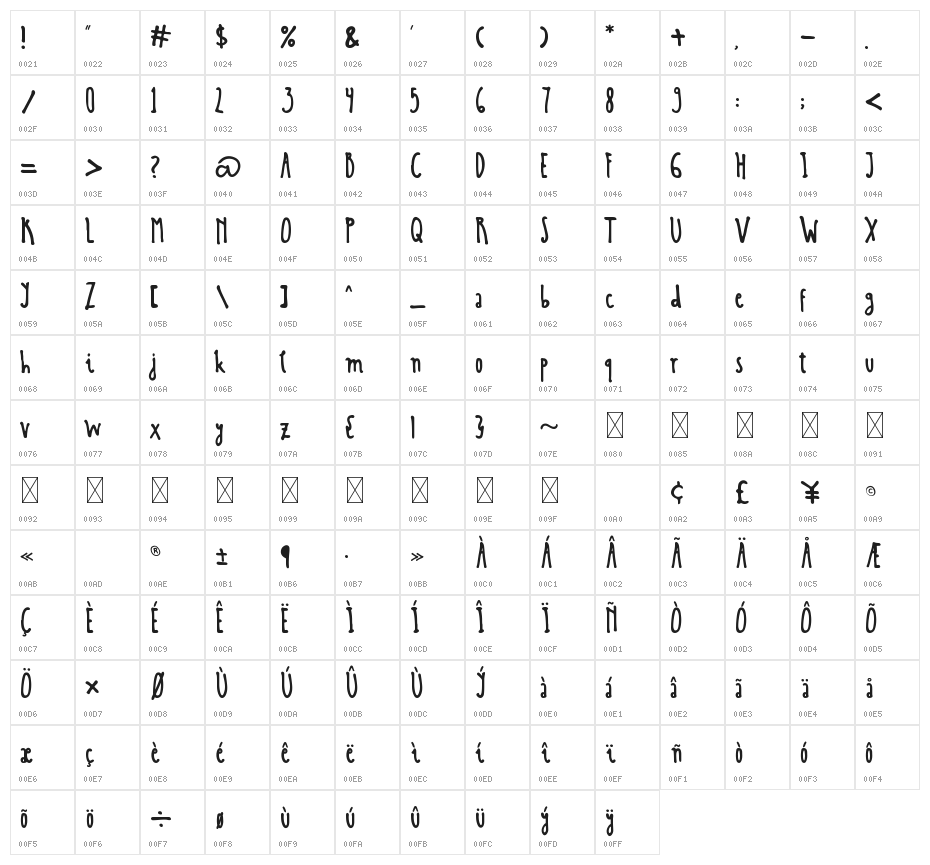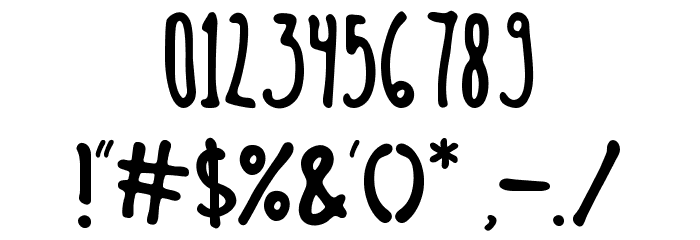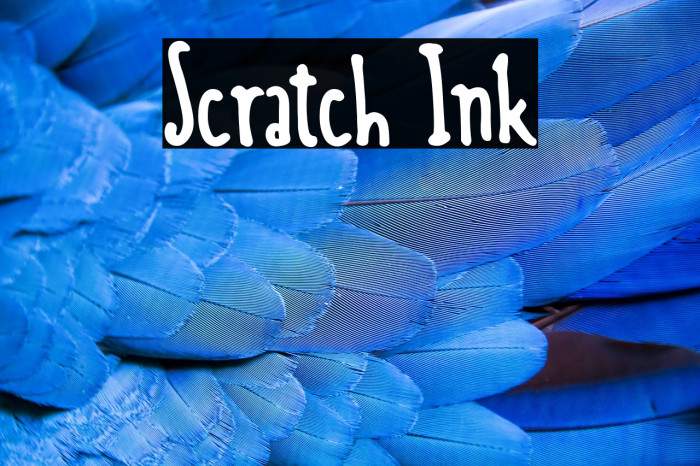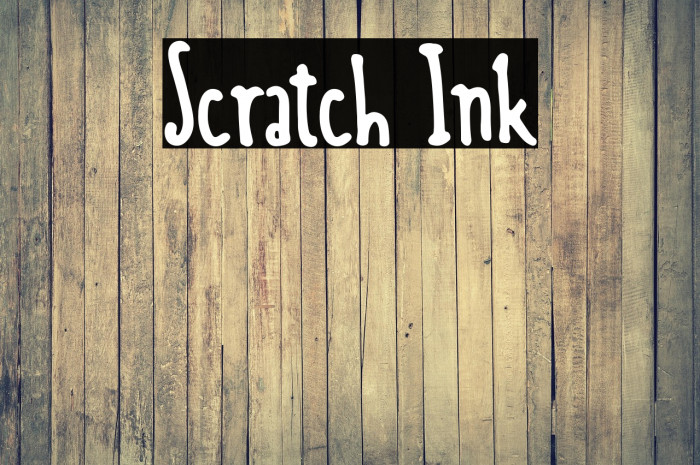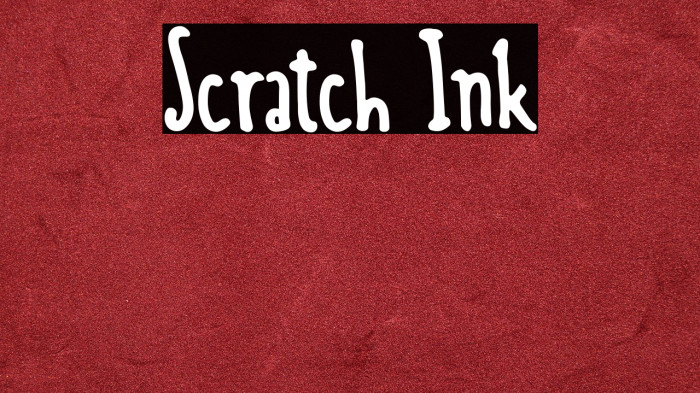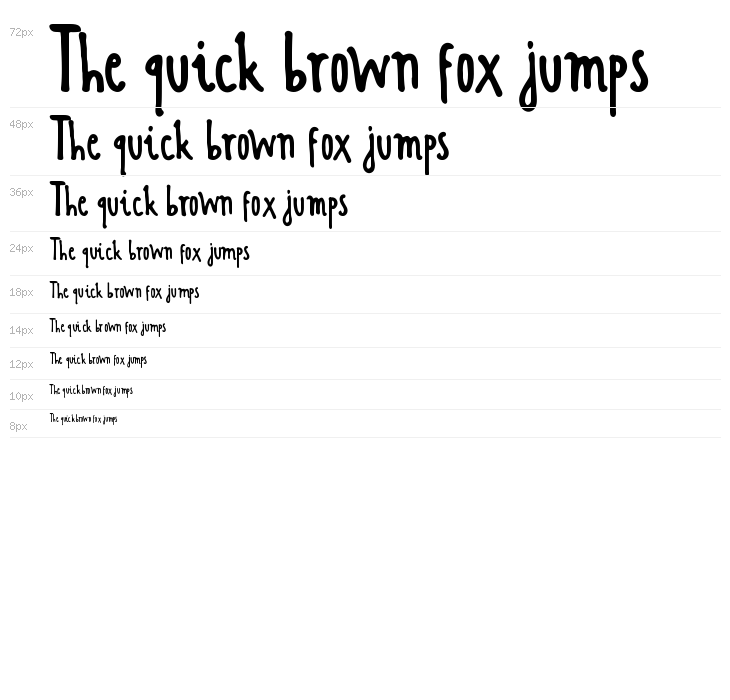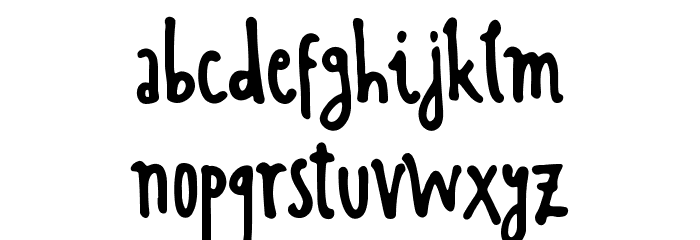
Scratch Ink Font
Scratch Ink Description
This font features a playful and informal style, characterized by its hand-drawn appearance. The letters have a slightly irregular shape, giving them a whimsical and artistic feel. The strokes are bold and rounded, with a consistent thickness that adds to the casual and approachable vibe. The overall design is reminiscent of handwriting, making it suitable for projects that require a personal touch. The characters are well-spaced, ensuring readability while maintaining the font's unique charm. This font is versatile and can be used in various creative contexts.